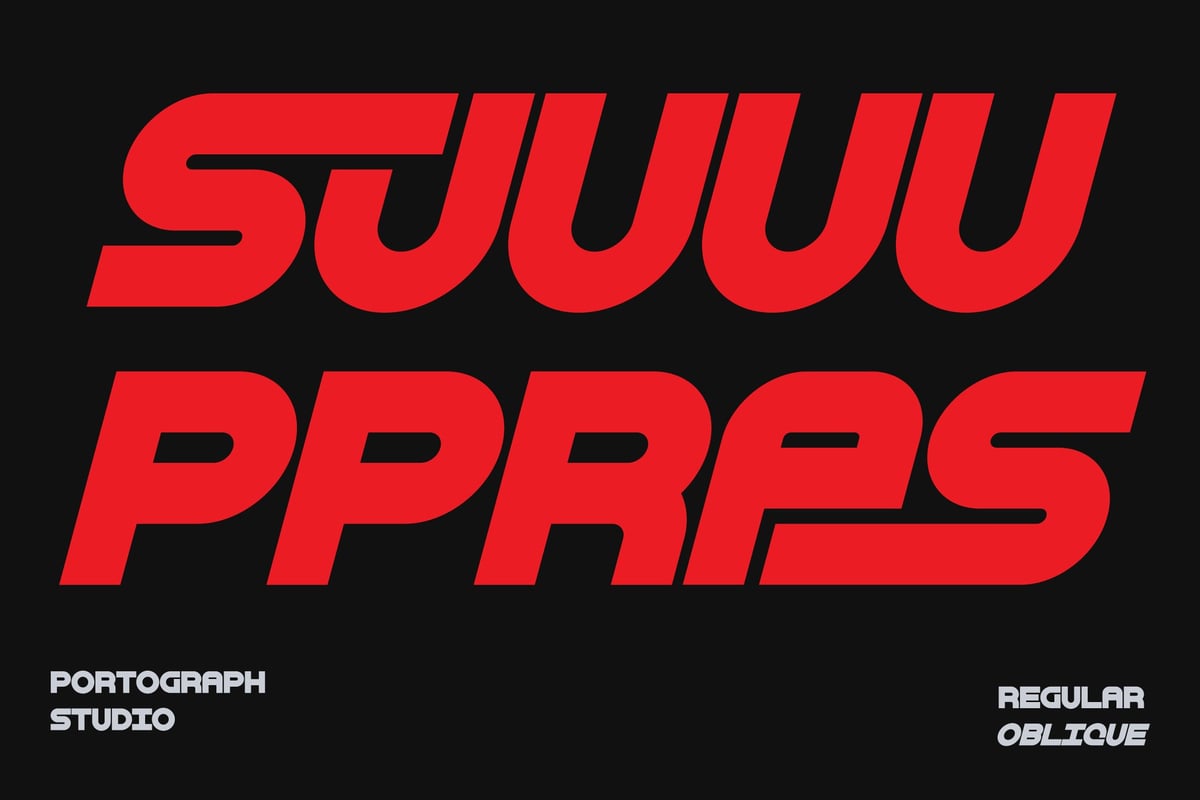
Supras - Sports Font
Unleash speed and power with Supras, the bold oblique display font that commands attention and delivers maximum impact. This heavy-stroke typeface features a forward-leaning structure and sharp curves that embody a strong sporty and racing-inspired aesthetic. Whether you're creating digital graphics or print materials, Supras ensures excellent readability while maintaining a modern, competitive edge. Perfect for sports branding, racing teams, gaming logos, athletic wear designs, and any project ...